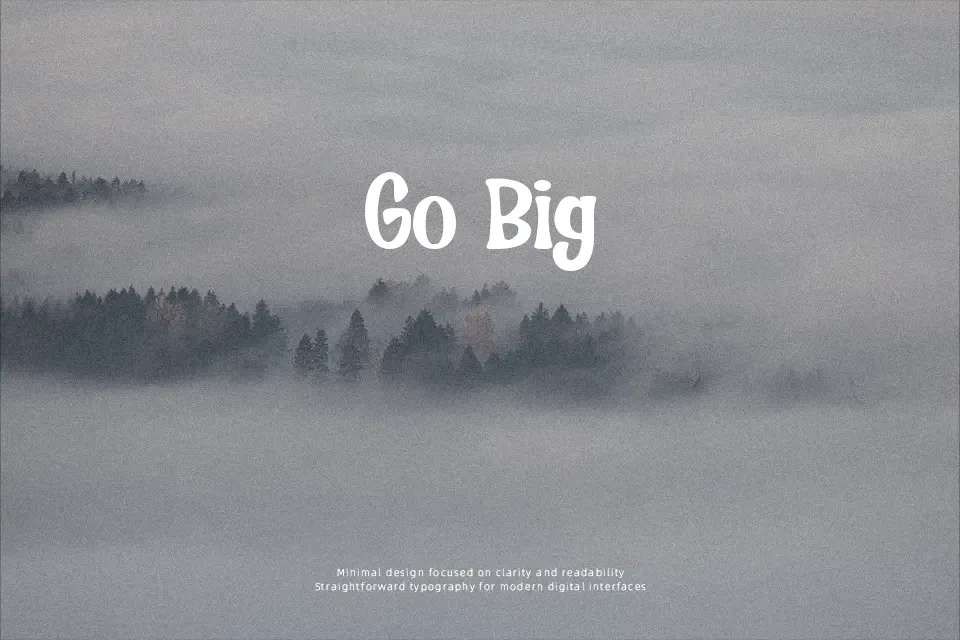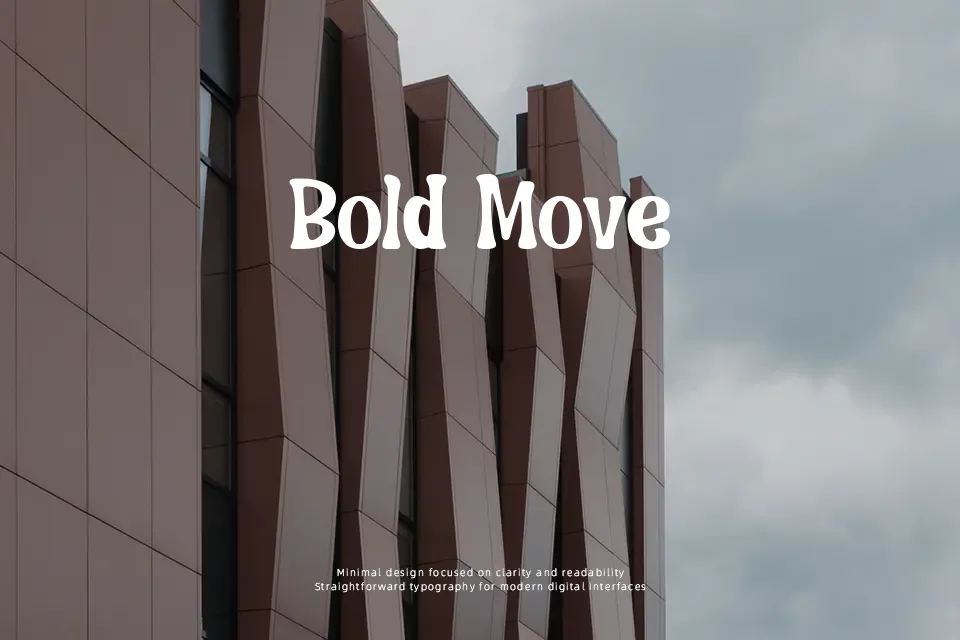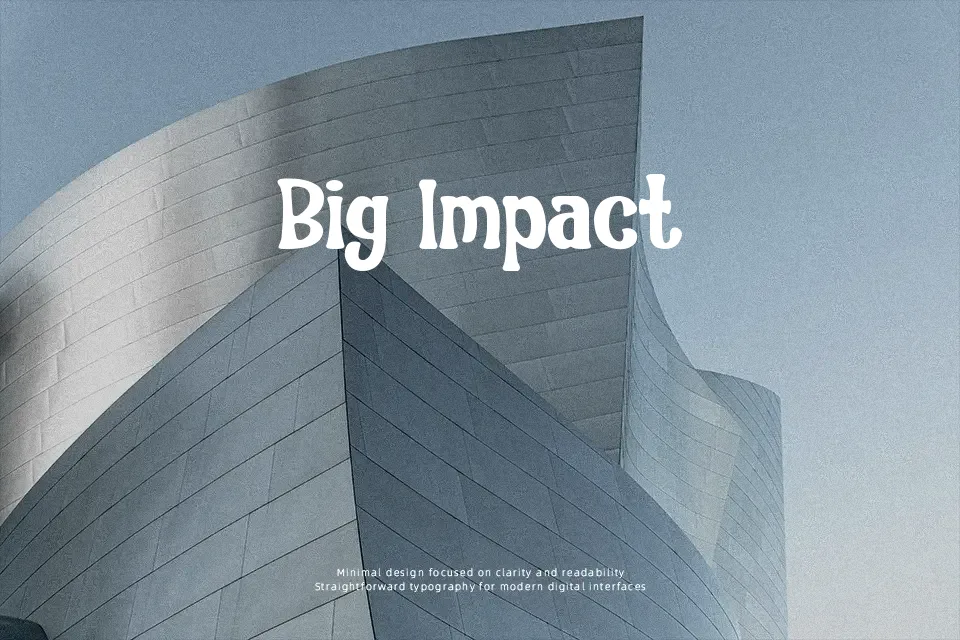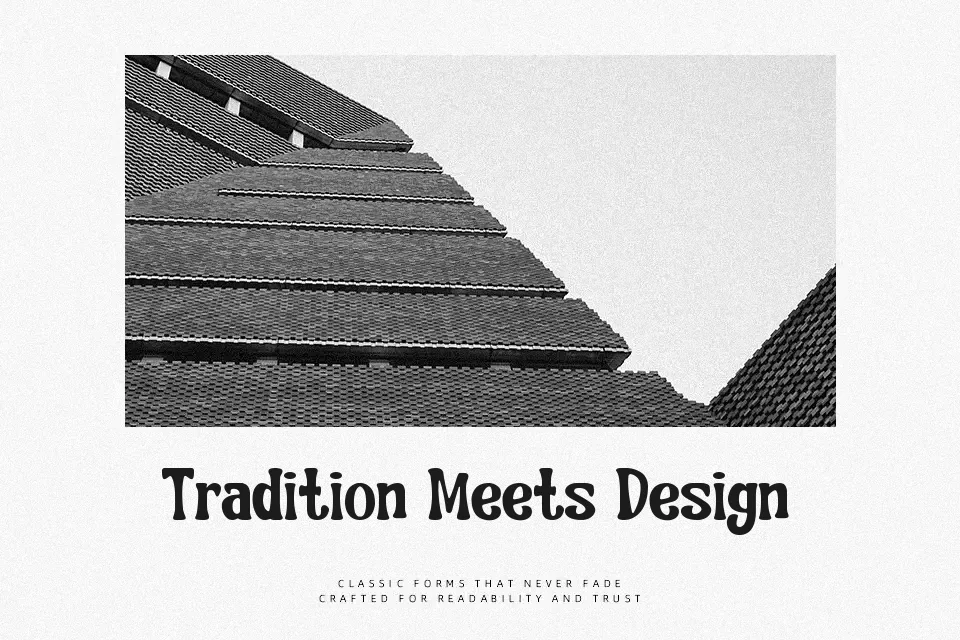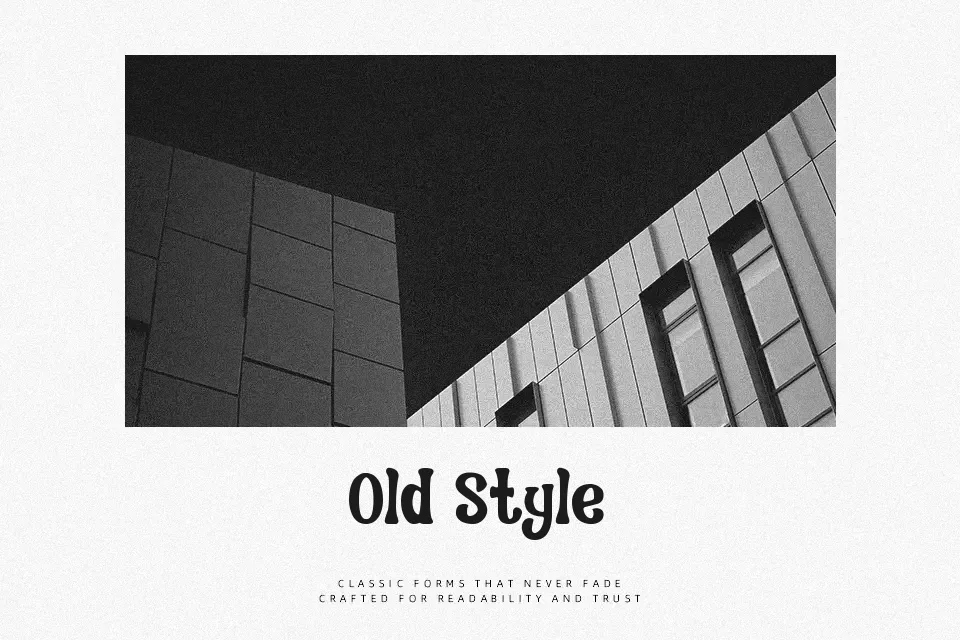
Travelista Font
Travelista Font maintains clear letterform distinction in short display contexts despite its decorative, nostalgic styling. The design pairs sturdy vertical stems with fluid, outward-curving terminals, creating animated proportions across both uppercase and lowercase characters. Balanced spacing prevents neighboring glyphs from colliding, while consistent waistlines preserve horizontal alignment across titles. In practical application, the typeface delivers strong visual weight for summer festival banners, cafe signage, beverage labels, and tourism promotional materials. However, dense decorative contours reduce reading comfort across extended multi-line text blocks. The letterforms ultimately succeed when given ample breathing room in prominent, headline-driven compositions.
Best For: vacation event posters, travel book titles, resort apparel graphics, summer beverage packaging
Not Ideal For: long body paragraphs, mobile interface text, technical documentation, dense spreadsheet data
Perfect for branding, headline, and packaging, with a creative and decorative style.